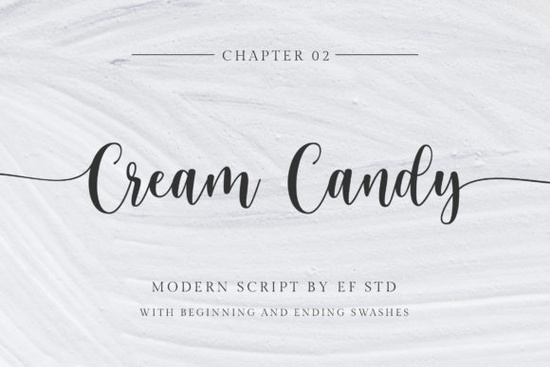
If you're looking for a script font that feels both modern and effortlessly elegant, Cream Candy Font is worth exploring. It’s a clean, flowing handwriting-style typeface with thoughtful details especially the 22 natural ligatures that make your text look more polished without extra effort. Whether you’re designing invitations, branding materials, or social media graphics, this font brings a soft, inviting tone to your work.
What makes Cream Candy Font stand out?
Unlike many script fonts that feel overly ornate or hard to read, Cream Candy balances beauty with clarity. The strokes are smooth and consistent, making it readable even at smaller sizes. The swashes those decorative extensions on certain letters are just noticeable enough to add charm without distracting from the message.
One of its strengths is how naturally it flows across lines. You can use it for long-form text like quotes or captions, not just short phrases. The ligatures help connect letters in a way that mimics real handwriting, giving your design a personal touch perfect if you want to convey warmth or authenticity.
How to use Cream Candy in real projects
- Wedding invitations – Pair it with a simple sans-serif font for the details to keep the focus on the names and dates.
- Brand logos – Use it for a boutique, skincare line, or handmade goods business where a personal, artisanal feel matters.
- Social media posts – Add a quote or product highlight in Cream Candy for a relaxed, approachable vibe.
- Print-on-demand designs – Ideal for mugs, tote bags, or wall art with short inspirational messages.
You’ll find that this font works well in both digital and print formats. It renders crisply on screens and prints cleanly, so your final output looks professional whether it's online or physical.
Where does Cream Candy fit in my font collection?
If you already have a mix of vintage-inspired scripts or bold hand-lettered fonts, Cream Candy adds a softer, more refined option. It sits nicely between playful and elegant ideal when you want something fresh but not too quirky.
For example, if you love the nostalgic charm of vintage script fonts, you might appreciate how Cream Candy shares some of that character but with a cleaner, more contemporary structure. Or if you enjoy the organic feel of handmade-style fonts, this one delivers similar warmth with better consistency.
It also complements other modern scripts like Dahlia Font, especially when layering text or creating visual hierarchy. Try using Cream Candy for headlines and pairing it with a simpler font for body text.
Why designers and small creators choose this font
Many users report that they return to Cream Candy because it saves time. Instead of manually adjusting spacing or adding flourishes, the built-in ligatures do much of the work automatically. This means faster workflow, especially when designing multiple items (like a series of greeting cards or social media templates).
It’s also great for beginners. You don’t need advanced design skills to make something look good. Just type your message, pick a few ligature-rich combinations, and you’re done.
Final thoughts: Is it right for your next project?
If you’re drawn to fonts that feel personal, fluid, and easy to use without sacrificing style Cream Candy is a solid choice. It’s not flashy, but it’s consistently effective. Whether you’re a crafter, small business owner, or hobbyist designer, this font fits into many workflows seamlessly.
Try it on a sample project first. See how it performs with your preferred colors, backgrounds, and layouts. You might be surprised at how quickly it becomes a go-to in your toolkit.